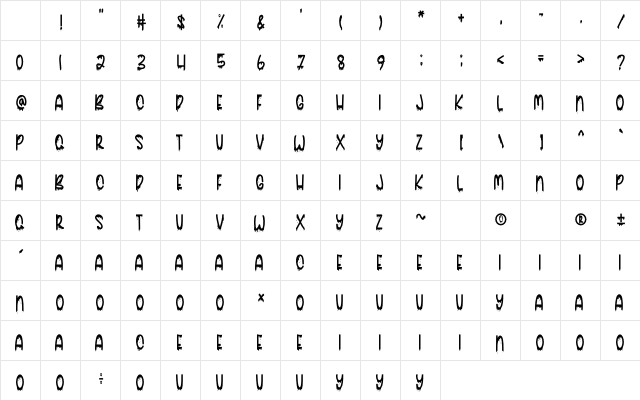
Complete Halloween Party Regular glyph index. Displaying only characters natively supported by Halloween Party Regular font.
Halloween Party is a composed and adaptable typeface that performs quietly and consistently across a wide range of design contexts.